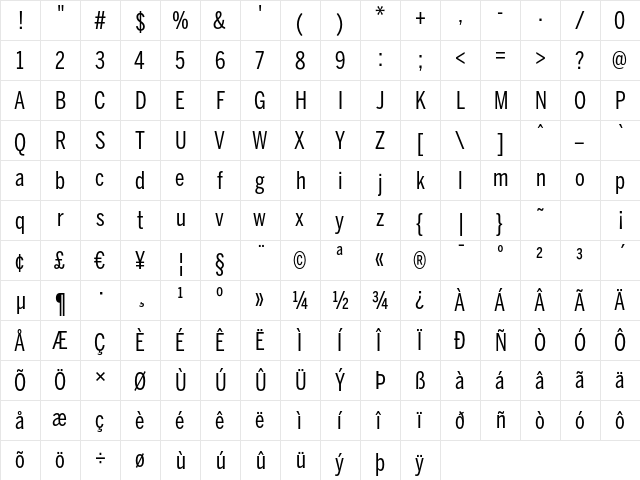
BentonSans Comp Regular Regular
| Foundry | The Font Bureau, Inc |
| Designer | Cyrus Highsmith, Tobias Frere-Jones, and Font Bureau |
Design Context for BentonSans Comp Regular Typeface
BentonSans Comp Regular takes a measured approach to typography — its balanced proportions and neutral character make it a reliable workhorse for both digital and print work.